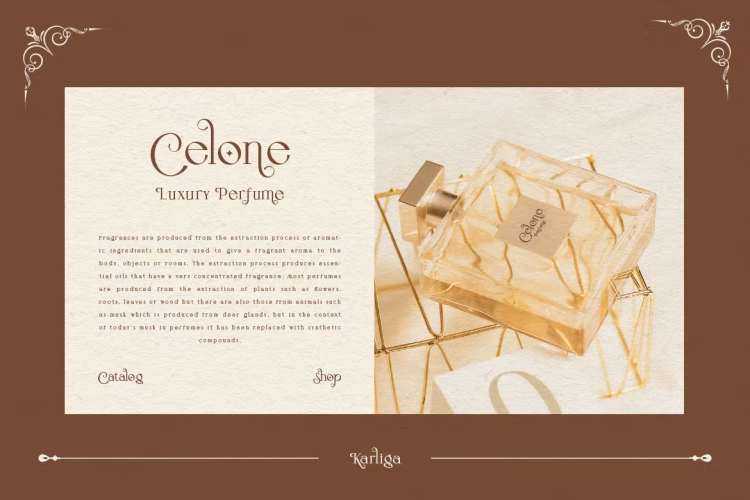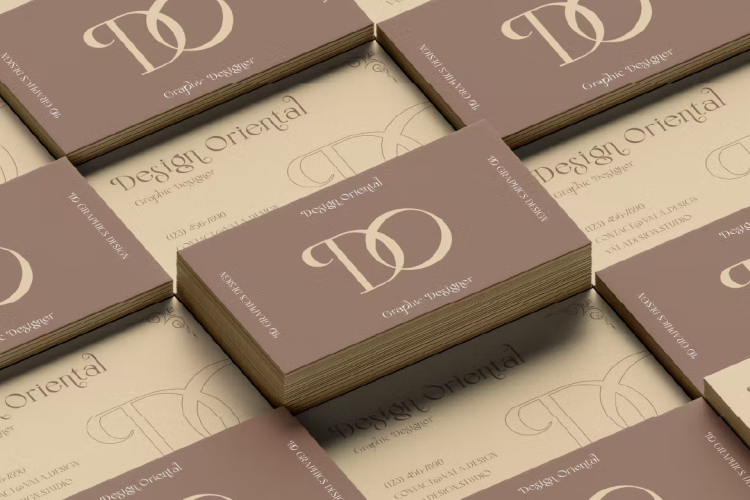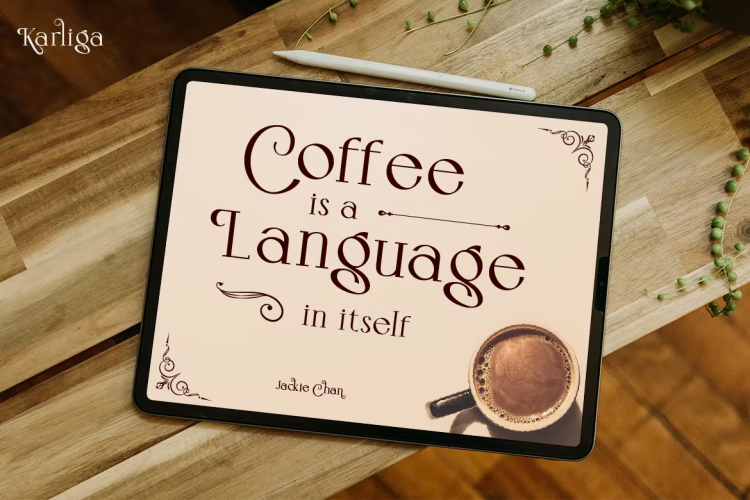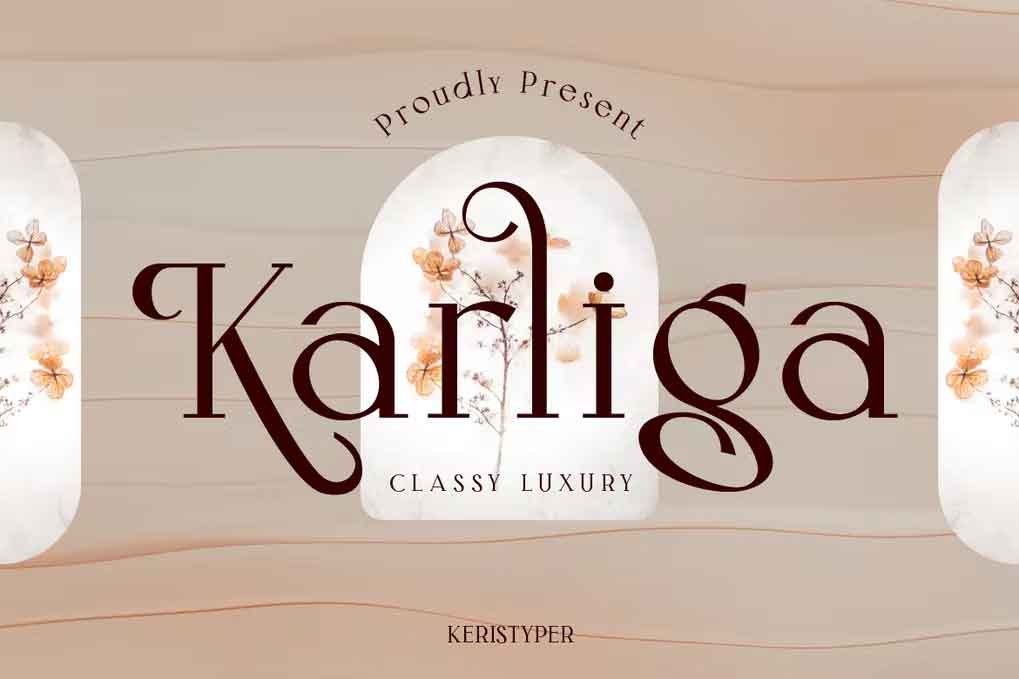
Karliga Font
Karliga is a modern vintage serif typeface. This font is good for logo design, Social media, Movie Titles, Books Titles, short text even long text letters, and good for your secondary text font with sans or serif.
Karliga Font is a Serif Fonts font that brings a professional and versatile look to your projects. Karliga is a modern vintage serif typeface.